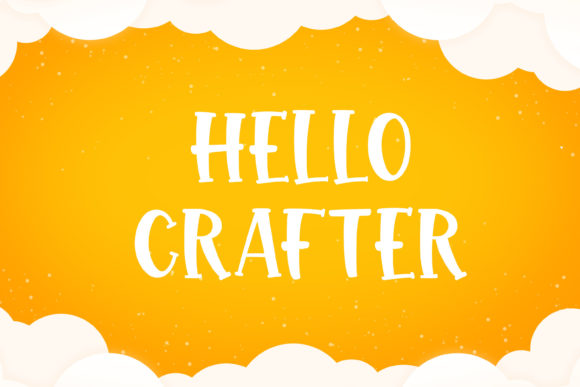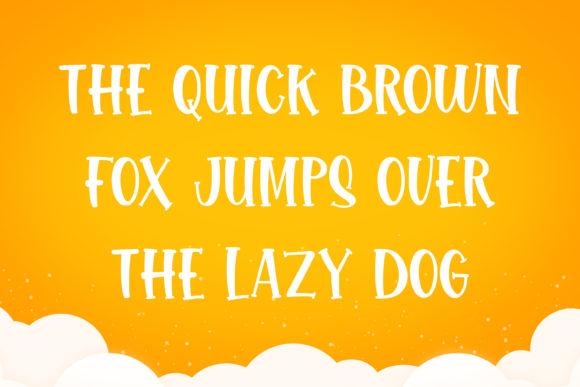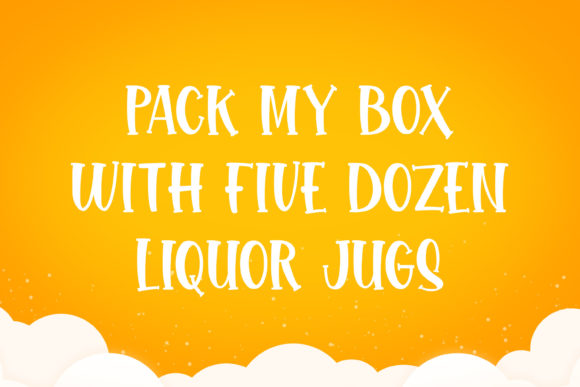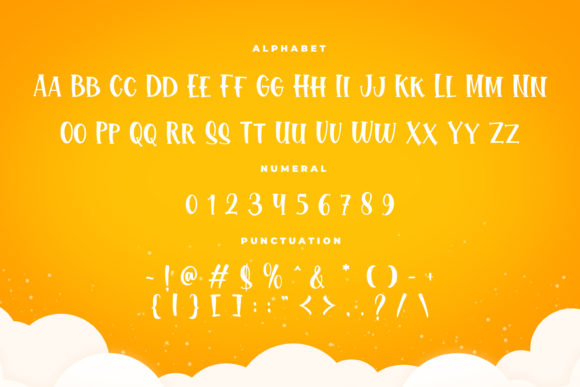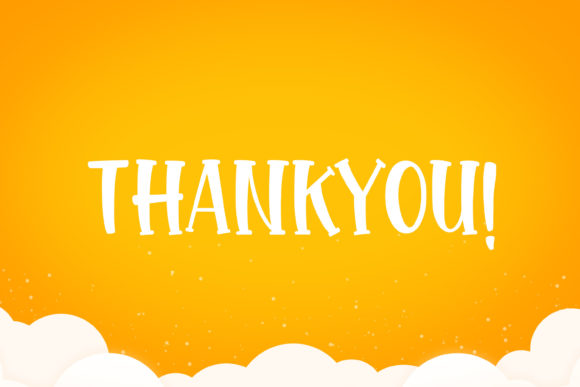
Introduction to Morning Craft Font
Remember that moment when you’re brainstorming ideas for a creative project, and you stumble upon the perfect font to bring it all together? That’s exactly what happens when you come across the Morning Craft Font. This charming display font is a treasure trove of quirky charm and fun, making it a perfect fit for any design project.
With its unique look and feel, the Morning Craft Font is a valuable resource for designers who want to add a touch of personality to their work. Whether you’re creating letterheads, titles, or stationery, this font is sure to bring a smile to your face and make your design stand out from the crowd. Plus, with a transparent background option, you can easily integrate it into your design without any hassle.
Key Features of Morning Craft Font
- Unique, hand-drawn design style perfect for creative projects and artistic expressions.
- Unique characteristics include subtle texture and organic feel, adding a personal touch to any design project.
Honest Review: Morning Craft Font
As a designer, I’m always on the lookout for high-quality design resources that can elevate my creative projects. The Morning Craft Font is a popular choice among designers, and I’ve had the chance to try it out.
- ✨ The Morning Craft Font has a unique, hand-crafted feel that’s perfect for creative projects that need a personal touch.
- ✨ The transparent background option allows for seamless integration with other design elements.
- ⚠️ The font is only available in a limited number of weights and styles, which may not be ideal for projects that require a wide range of typographic options.
- ⚠️ The font may not be suitable for large-scale text, as it can become difficult to read at bigger sizes.
Overall, the Morning Craft Font is a solid design resource that can add a touch of personality to your creative projects. While it may have some limitations, its unique feel and free availability make it a great choice for designers looking for a high-quality font.
Tips for Getting the Most Out of Morning Craft Font
Here are some tips for getting the most out of the Morning Craft Font:
- Use the font in combination with a transparent background for a clean and modern look.
- Use the font in conjunction with other design resources, such as graphics and images, to create a cohesive design.
The Morning Craft Font is a versatile design resource that can be used in a variety of creative projects, including:
- Social media graphics and posts.
- Invitations and event promotions.
- Product labels and packaging.